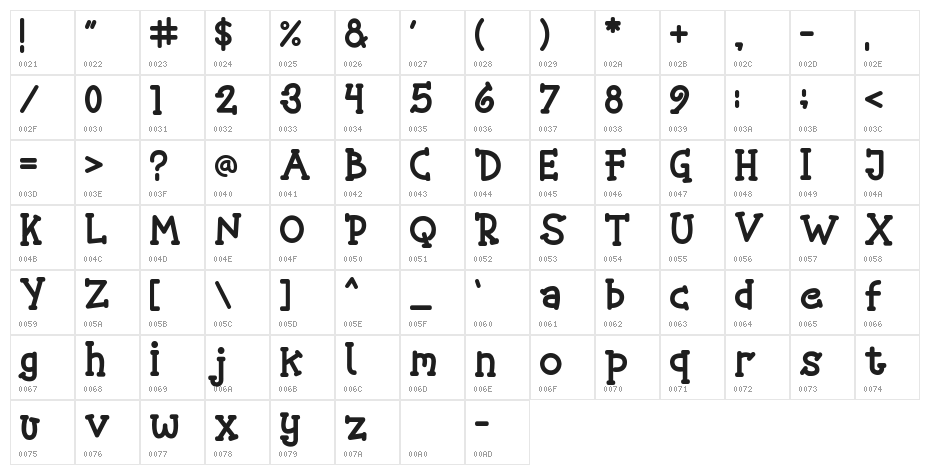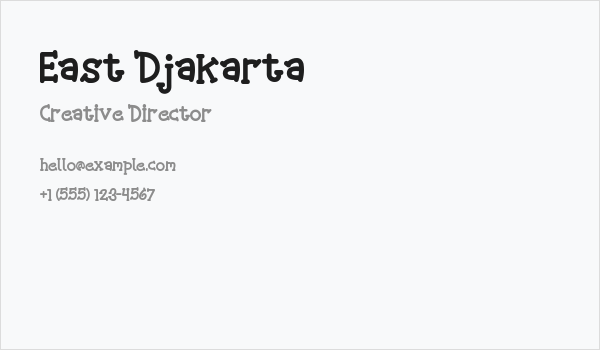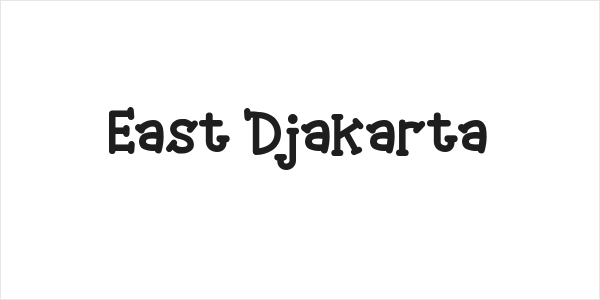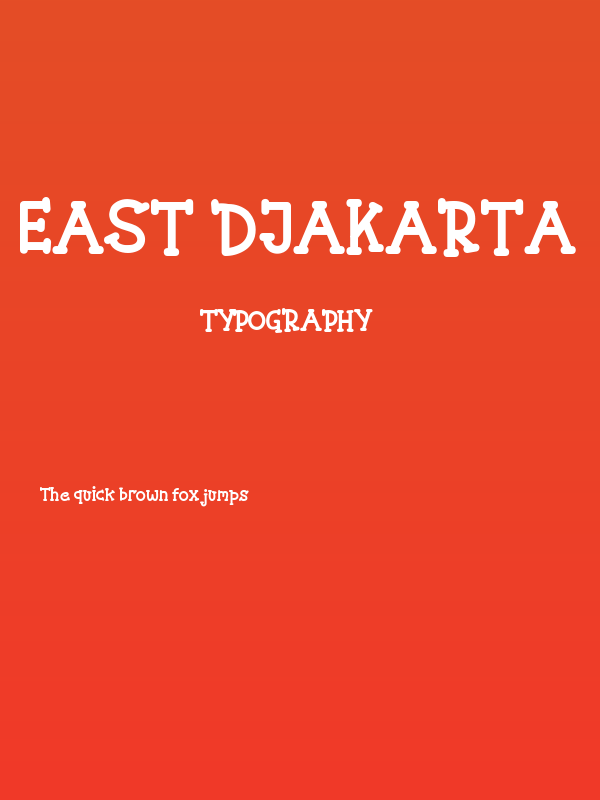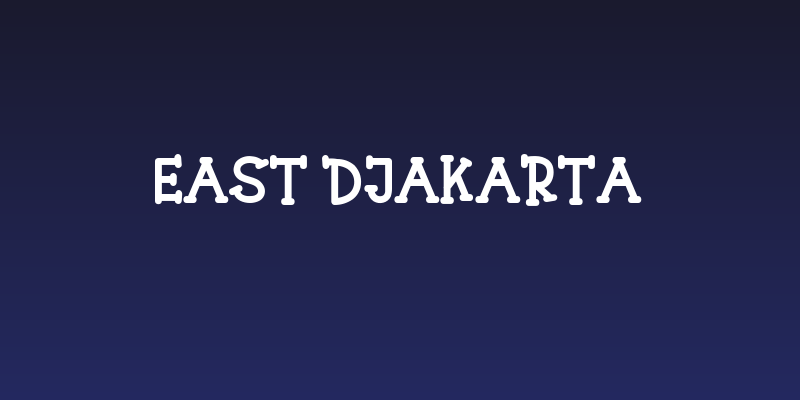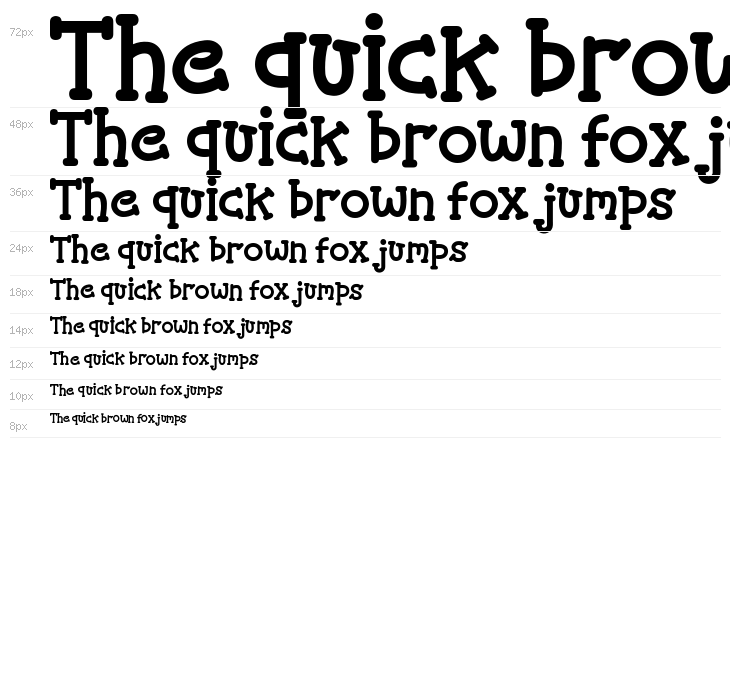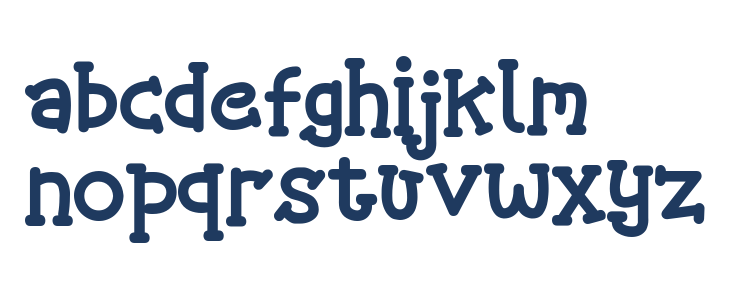
East Djakarta Font
East Djakarta Description
This playful and bold font features a unique, rounded design with a hand-drawn aesthetic. The characters are thick and slightly irregular, giving them a whimsical and friendly appearance. The uppercase and lowercase letters maintain a consistent style, with rounded edges and a slight tilt that adds to the casual feel. Numbers and special characters follow the same design principles, ensuring uniformity across all glyphs. This font is ideal for projects that require a fun and approachable look, such as children's books, playful branding, or creative posters.
| Proposed Projects | Children's books, playful branding, creative posters, greeting cards. |